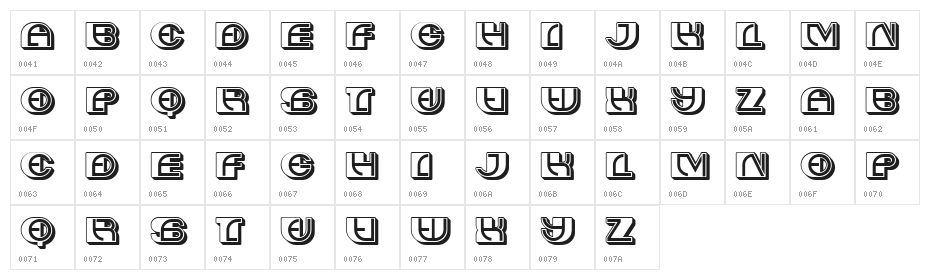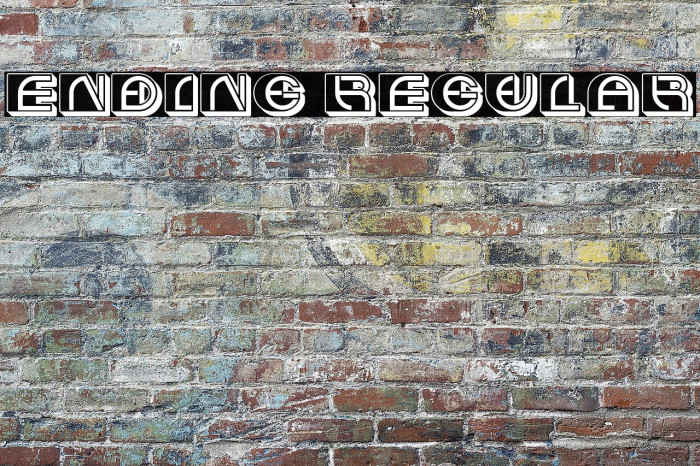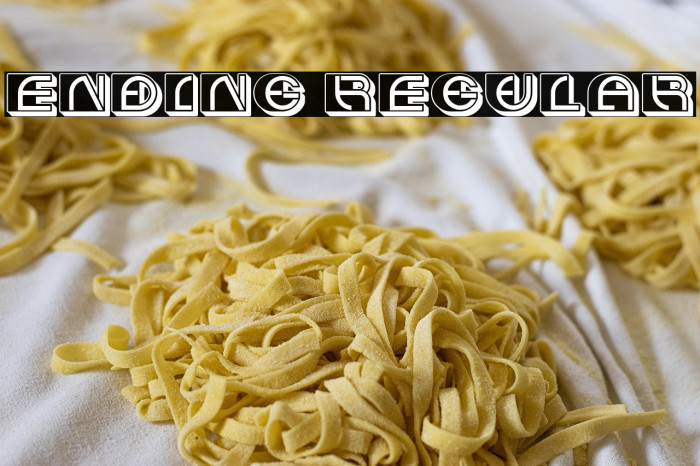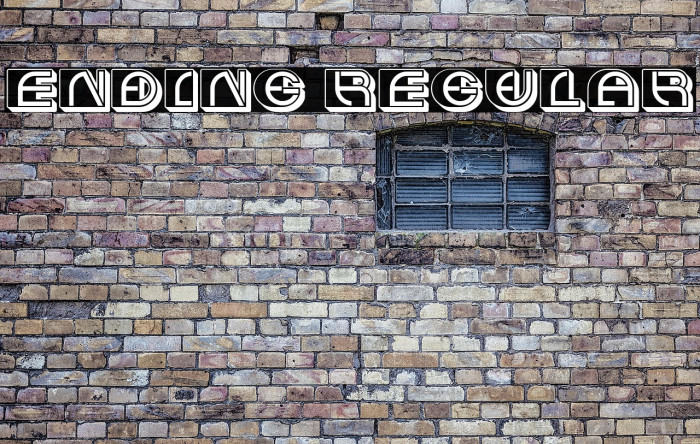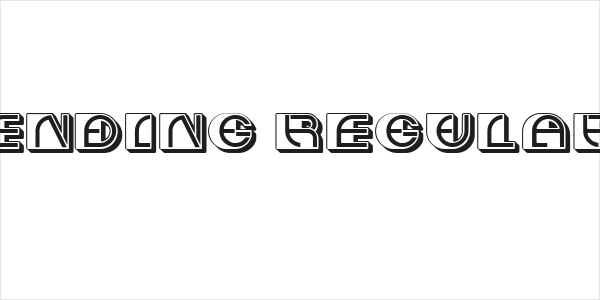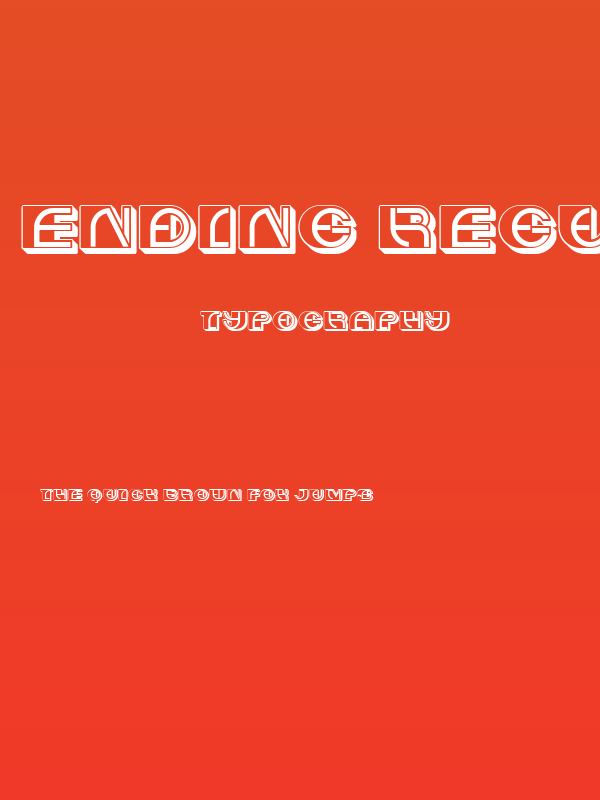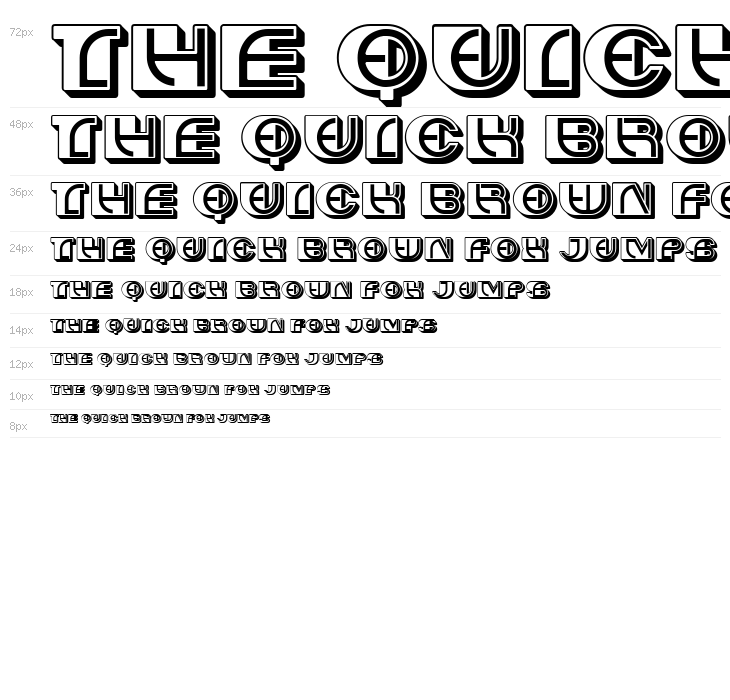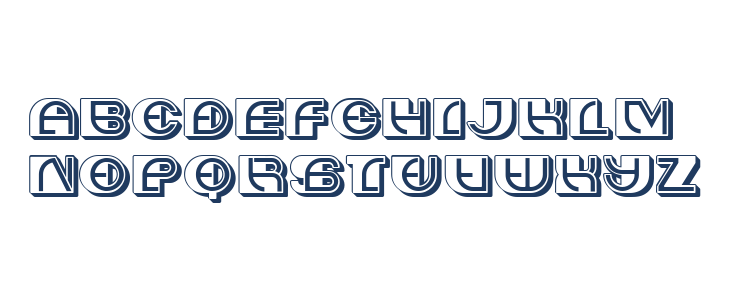
Ending Regular Font
Ending Regular Description
This font features a bold, geometric design with a three-dimensional effect. Each character is outlined with a thick black border, creating a shadow-like appearance that adds depth and visual interest. The letters are constructed with clean, straight lines and sharp angles, giving them a modern and futuristic feel. The consistent width and height of the characters ensure a uniform appearance, while the unique styling of each letter adds a distinctive touch. This font is particularly eye-catching and is well-suited for use in designs that require a strong visual impact.